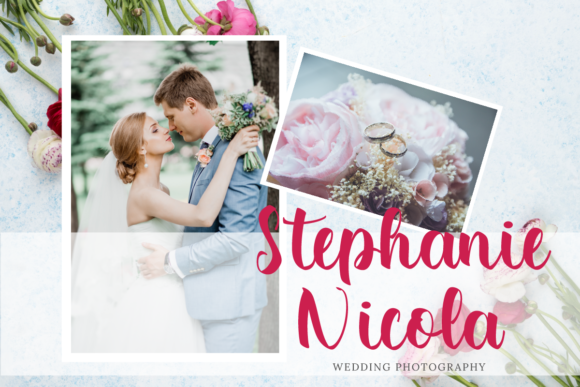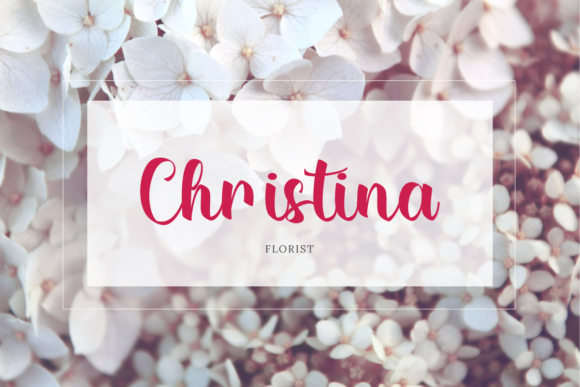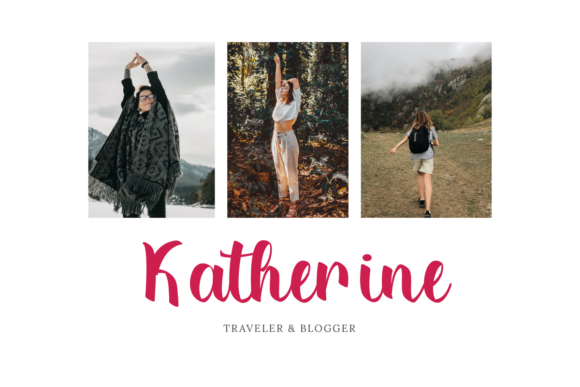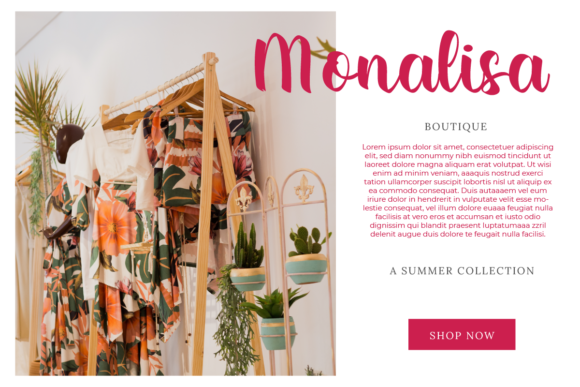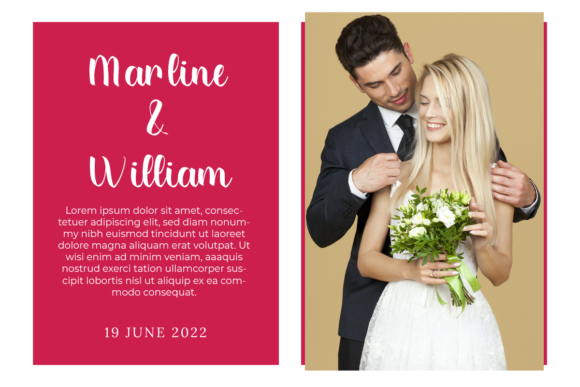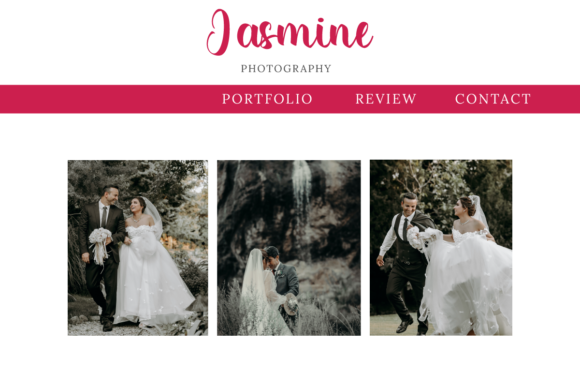
Alicia Catherine Font: Elevate Your Designs with Elegance and Sophistication
In the world of typography, few fonts manage to capture the essence of elegance and sophistication as beautifully as the Alicia Catherine font. This lovely, elegant, and unique script font has been making waves in the design community, and for good reason. Its ravishing style is perfect for creating stunning wedding invitations, beautiful stationery art, eye-catching social media posts, and so much more. In this article, we’ll dive into the world of Alicia Catherine font, exploring its features, uses, and benefits for designers and crafters.
What is Alicia Catherine Font?
Alicia Catherine font is a script typeface that exudes luxury, sophistication, and refinement. Its elegant strokes, beautiful swashes, and intricate details make it a standout in the world of typography. This gorgeous font is perfect for designs that require a touch of class, poise, and glamour. Whether you’re working on a wedding invitation, a branding project, or social media graphics, Alicia Catherine font is sure to elevate your design to new heights.
Features of Alicia Catherine Font
So, what makes Alicia Catherine font so special? Here are some of its key features:
- Elegant Script Strokes: Alicia Catherine font boasts beautiful, flowing script strokes that are both refined and sophisticated.
- Unique Swashes: The font comes with a range of swashes that add a touch of elegance and flair to your designs.
- Intricate Details: From subtle flourishes to intricate details, Alicia Catherine font is full of beautiful nuances that make it a joy to work with.
- Versatile: This font is incredibly versatile, making it perfect for a wide range of design projects, from wedding invitations to branding and social media graphics.
Uses of Alicia Catherine Font
So, what can you create with Alicia Catherine font? The possibilities are endless! Here are some ideas to get you started:
- Wedding Invitations: Create stunning wedding invitations that set the tone for a luxurious and sophisticated celebration.
- Stationery Art: Design beautiful stationery art, including greeting cards, thank-you cards, and more.
- Social Media Posts: Elevate your social media graphics with elegant and eye-catching typography.
- Branding: Use Alicia Catherine font to create a luxurious brand identity that exudes sophistication and refinement.
Benefits of Using Alicia Catherine Font
So, why should you choose Alicia Catherine font for your next design project? Here are some benefits to consider:
- Instant Elegance: Alicia Catherine font adds an instant touch of elegance and sophistication to your designs.
- Unique and Memorable: This font is sure to make your designs stand out and leave a lasting impression.
- Time-Saving: With Alicia Catherine font, you can create stunning designs in no time, thanks to its beautiful and intricate details.
- Versatile: This font is perfect for a wide range of design projects, making it a valuable addition to your font library.
Tips for Using Alicia Catherine Font
To get the most out of Alicia Catherine font, here are some tips to keep in mind:
- Use it Sparingly: While Alicia Catherine font is beautiful, it’s best to use it sparingly to avoid overwhelming your design.
- Experiment with Swashes: Don’t be afraid to experiment with the font’s swashes to add a touch of elegance and flair to your designs.
- Pair it with Other Fonts: Try pairing Alicia Catherine font with other fonts to create a unique and visually appealing typography combination.
In conclusion, Alicia Catherine font is a stunning script typeface that is sure to elevate your designs to new heights. With its elegant strokes, beautiful swashes, and intricate details, this font is perfect for creating gorgeous wedding invitations, beautiful stationery art, eye-catching social media posts, and much more. Whether you’re a designer or crafter, Alicia Catherine font is a valuable addition to your font library.